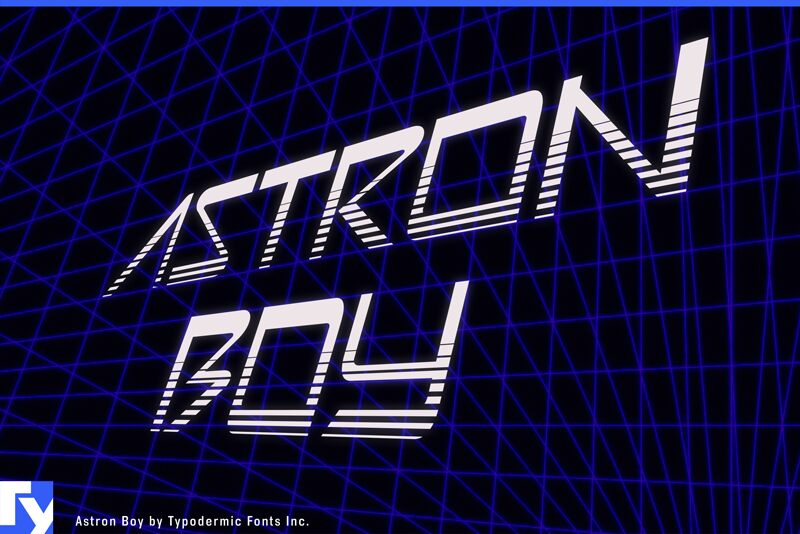
Astron Boy, a captivating display font designed by Typodermic Fonts, exudes a striking futuristic allure. With its rounded-square forms and distinctive character shapes, this font strikes a delicate balance between modern minimalism and retro-inspired aesthetics. The clean, geometric lines and bold, attention-grabbing presence evoke a sense of technological sophistication, inviting designers to explore its vast creative potential.
The versatility of Astron Boy shines through its diverse range of available styles, including standard, italic, shaded, and striped variants. This font's adaptability allows it to seamlessly integrate into a variety of design projects, from vibrant branding and packaging to eye-catching headlines and digital interfaces. Whether you're crafting a sleek, futuristic aesthetic or seeking to infuse your designs with a touch of retro-futuristic charm, Astron Boy by Typodermic Fonts offers a compelling typographic solution.